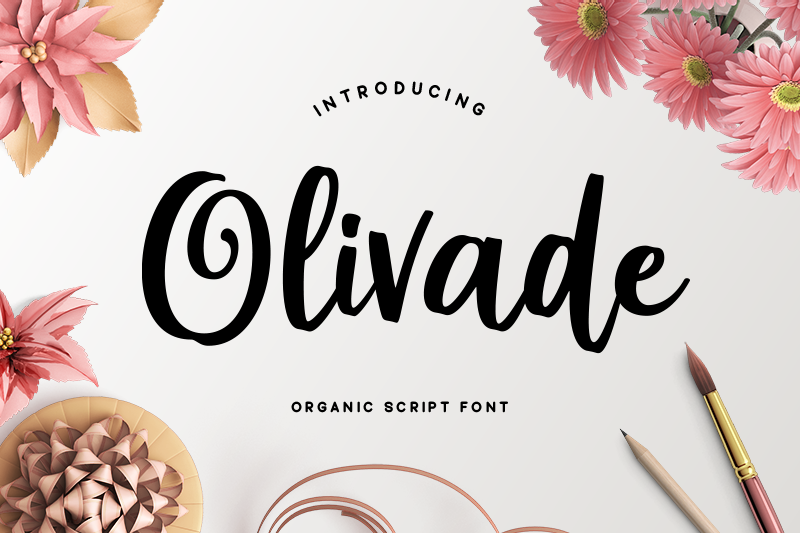
Preview and download Olivade Font. Created by Akhmad Reza Fauzi in Script Handwritten styles with Free for personal use license.
This font is for PERSONAL USE ONLY! Olivade is a fresh and organic script font with a cool feel. --------------------------------------------------------- Any DONATION will be appreciated https://www.paypal.me/akhmadrezafauzi Purchase COMMERCIAL LICENSE: https://grezlinestudio.com/product/olivade-font/ Visit my store for special price and discount : https://grezlinestudio.com If you have any questions, feel free to contact me : grezline.studio@gmail.com |